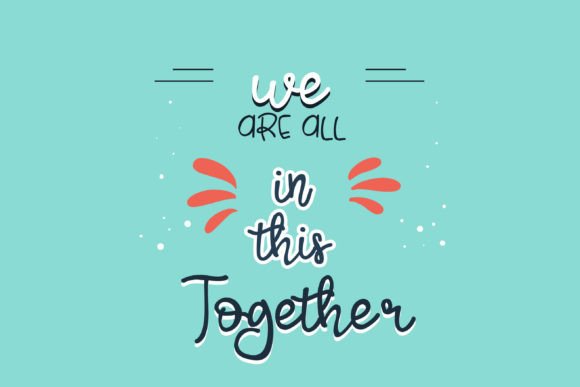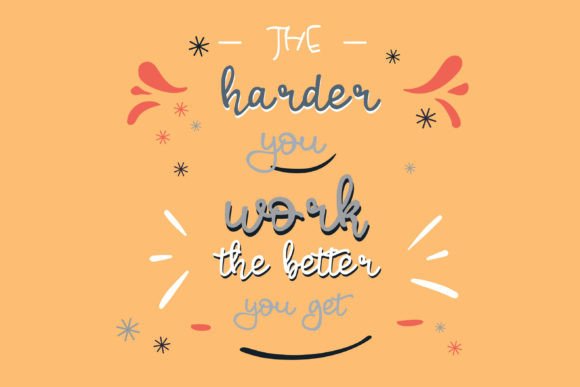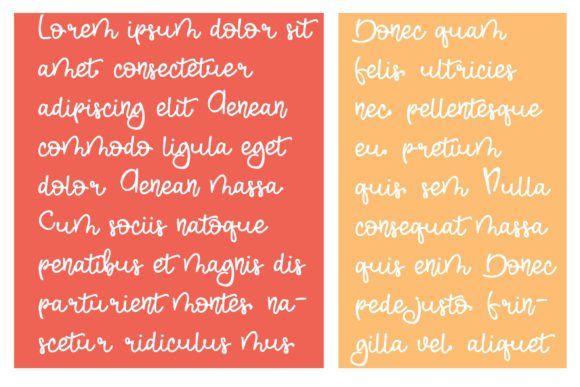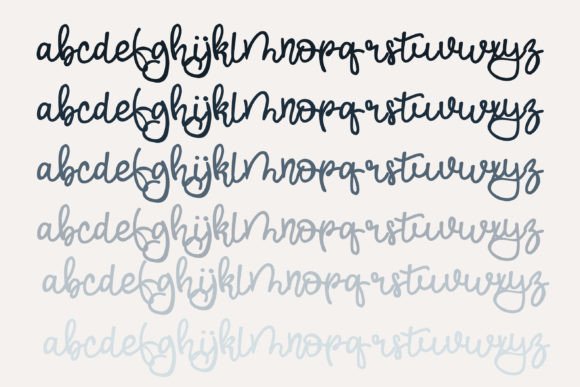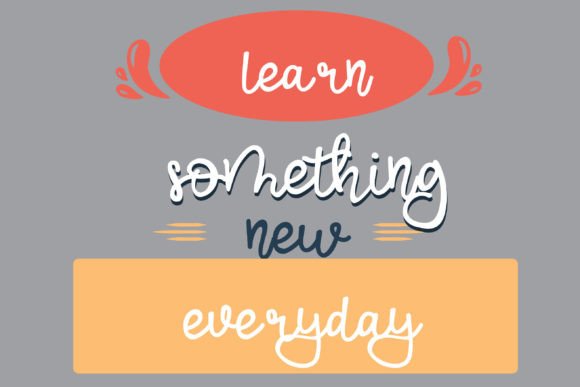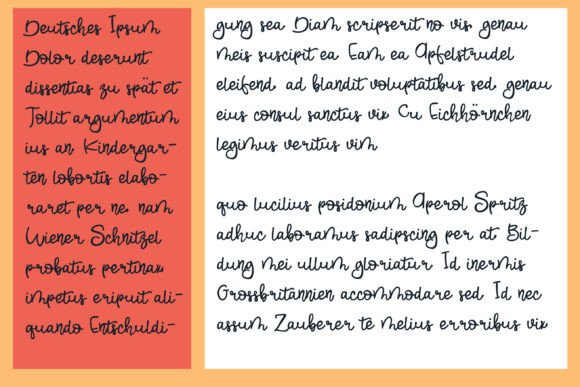
Introducing Flimflam Font: The Playful Script Font You Never Knew You Needed
Are you tired of using the same old fonts in your designs? Do you want to add a touch of personality and whimsy to your projects? Look no further than Flimflam Font, our newest script font that’s sure to delight designers and crafters alike. With its playful and curvy design, Flimflam Font is perfect for adding a dash of charm to any project, from greeting cards to children’s books.
The Inspiration Behind Flimflam Font
Our team of designers was inspired to create Flimflam Font by the need for a font that could bring a sense of fun and playfulness to designs. We wanted to create a font that would be perfect for projects that require a touch of whimsy and personality, such as:
- Children’s books and educational materials
- Branding and packaging for crafty and artisanal products
The Design of Flimflam Font
Flimflam Font is a script font that features curvy lines and bouncy accents, giving it a lighthearted and playful look. Each letter is carefully crafted to be unique and full of personality, making it perfect for designs that require a touch of charm. The font is highly legible, making it suitable for use in a variety of contexts, from body text to headings and titles.
Key Features of Flimflam Font
Here are just a few key features that make Flimflam Font stand out:
- Playful and whimsical design: Flimflam Font features curvy lines and bouncy accents that give it a fun and lighthearted look.
- Highly legible: Despite its playful design, Flimflam Font is highly legible, making it suitable for use in a variety of contexts.
- Unique and full of personality: Each letter in Flimflam Font is carefully crafted to be unique and full of personality, making it perfect for designs that require a touch of charm.
- Perfect for designs that require a touch of whimsy: Flimflam Font is perfect for designs that require a touch of personality and charm, from greeting cards to children’s books.
Using Flimflam Font in Your Designs
Flimflam Font is a versatile font that can be used in a variety of contexts. Here are just a few ideas for using Flimflam Font in your designs:
- Greeting cards and invitations: Add a touch of whimsy and personality to your greeting cards and invitations with Flimflam Font.
- Children’s books and educational materials: Flimflam Font is perfect for children’s books and educational materials, adding a touch of fun and playfulness to your designs.
- Branding and packaging: Use Flimflam Font to add a touch of personality and charm to your branding and packaging.
- Social media graphics and posts: Add a touch of whimsy and personality to your social media graphics and posts with Flimflam Font.
Tips and Tricks for Getting the Most Out of Flimflam Font
Here are just a few tips and tricks for getting the most out of Flimflam Font:
- Experiment with different colors and textures: Flimflam Font looks great in a variety of colors and textures, so don’t be afraid to experiment and find the perfect combination for your design.
- Use Flimflam Font in combination with other fonts: Flimflam Font pairs well with a variety of other fonts, so try using it in combination with other fonts to create a unique and interesting design.
- Don’t be afraid to get creative: Flimflam Font is a versatile font that can be used in a variety of contexts, so don’t be afraid to get creative and try new things.